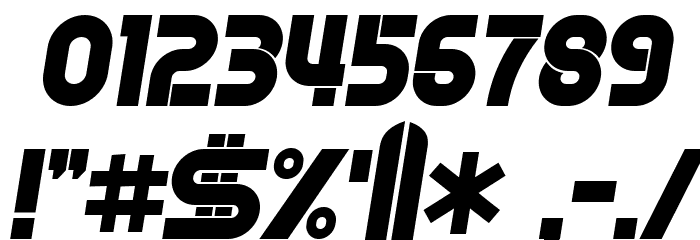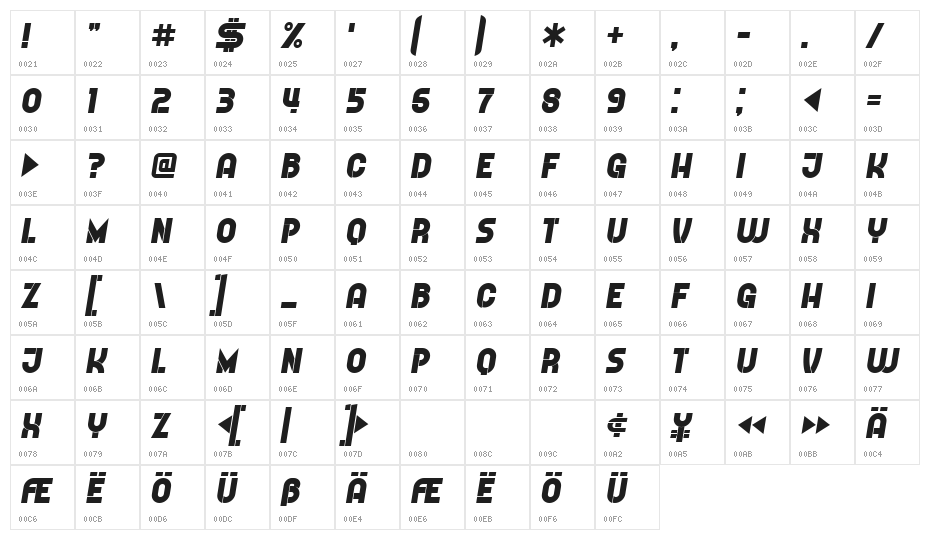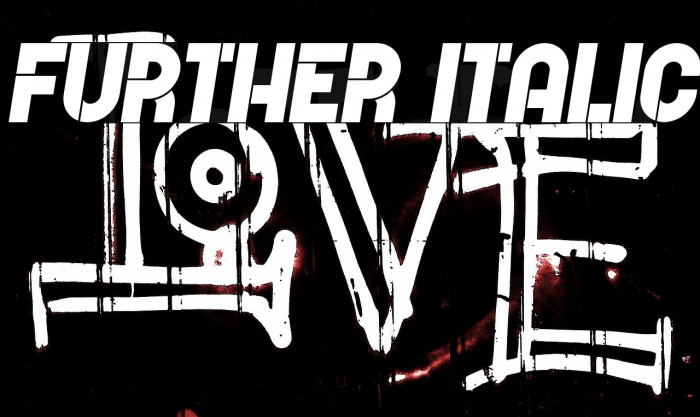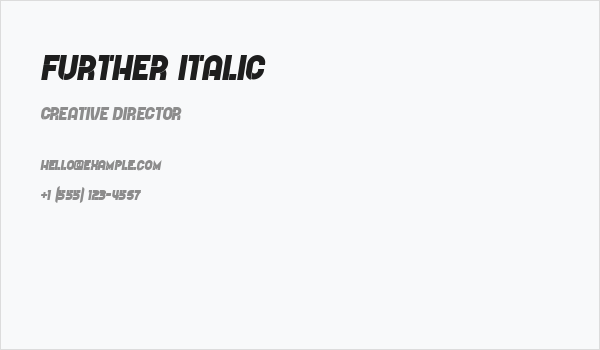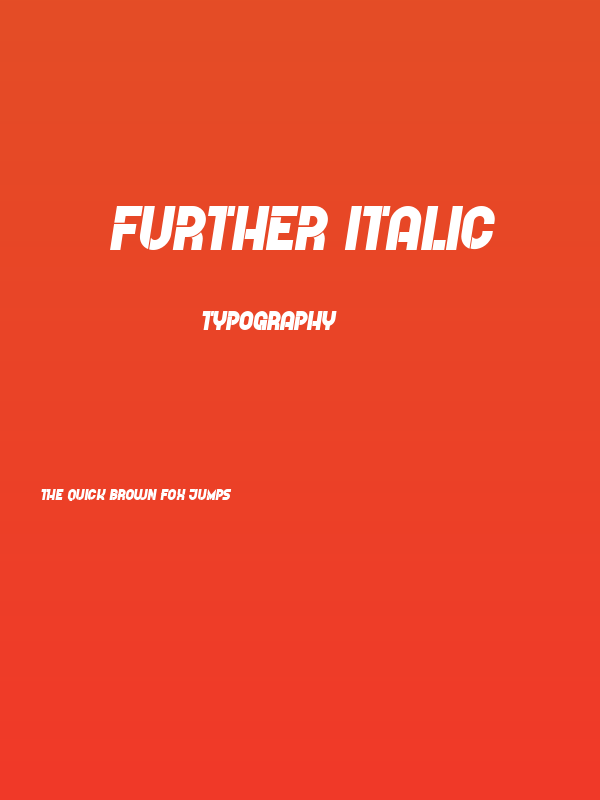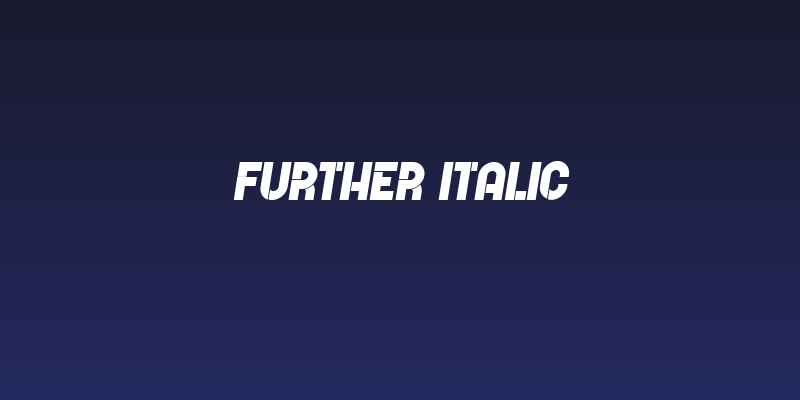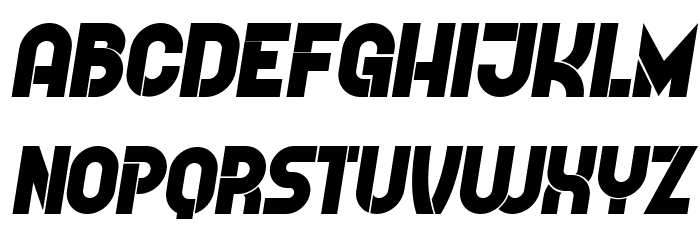
Further Italic Font
Further Italic Description
This font features a bold and dynamic design with a distinct italic slant, creating a sense of motion and energy. The characters are wide and robust, with a strong geometric influence that gives them a modern and futuristic appearance. The uppercase and lowercase letters maintain a consistent style, with sharp angles and clean lines. The numerals and special characters follow the same bold and angular design, ensuring uniformity across all elements. This font's unique style makes it stand out, making it ideal for projects that require a strong visual impact.
| Proposed Projects | Ideal for sports branding, dynamic posters, futuristic designs, and impactful headlines. |